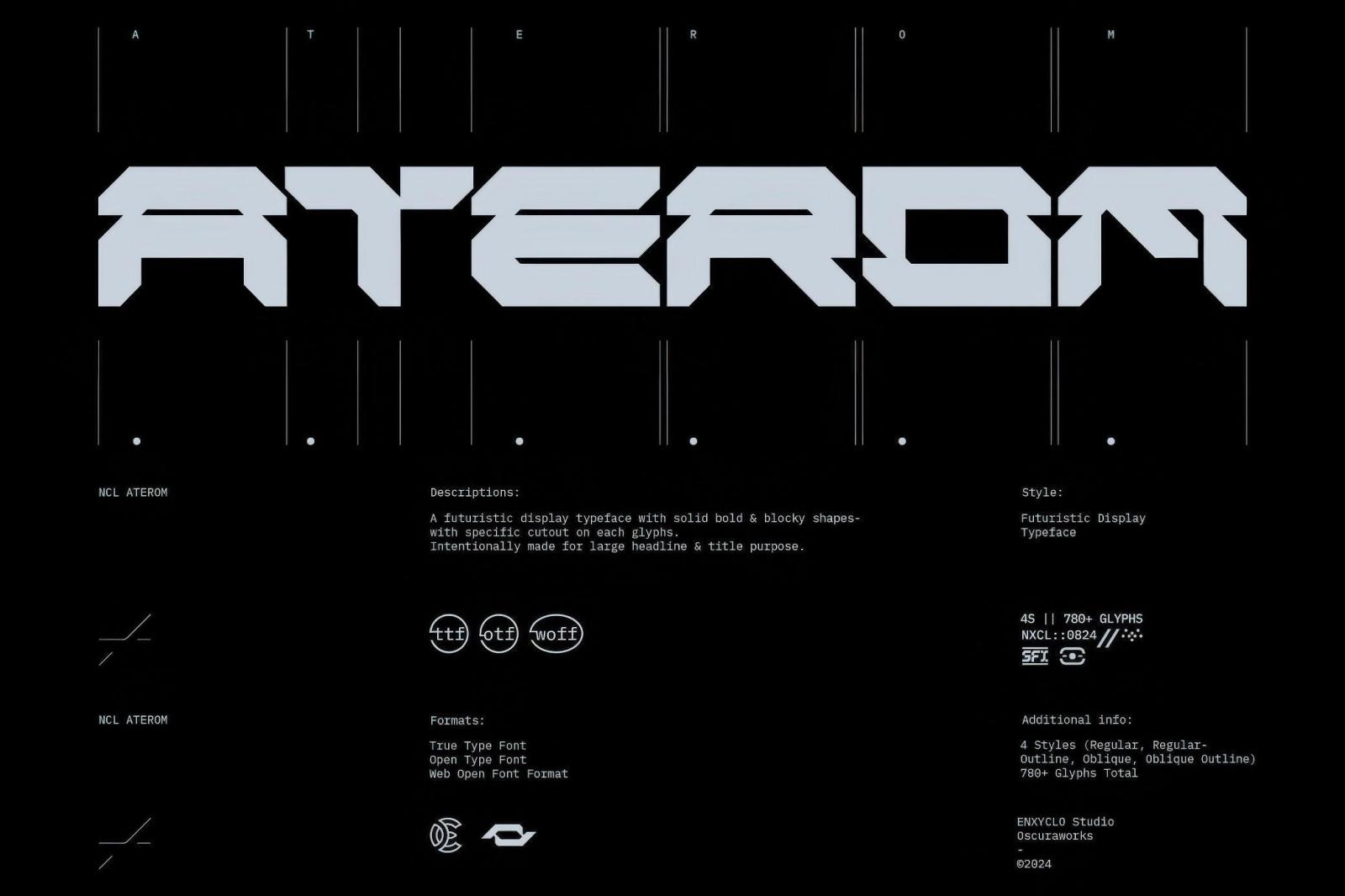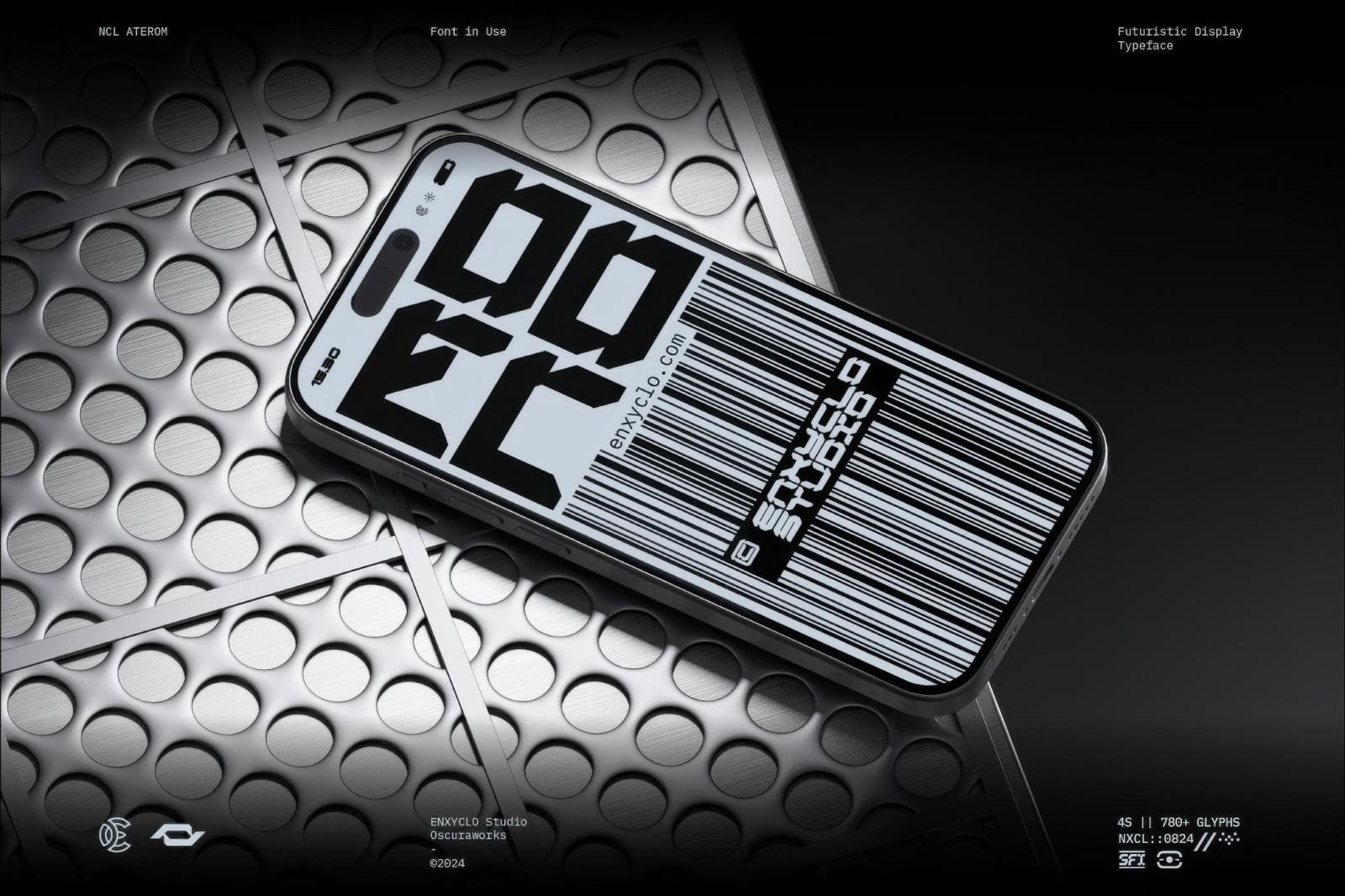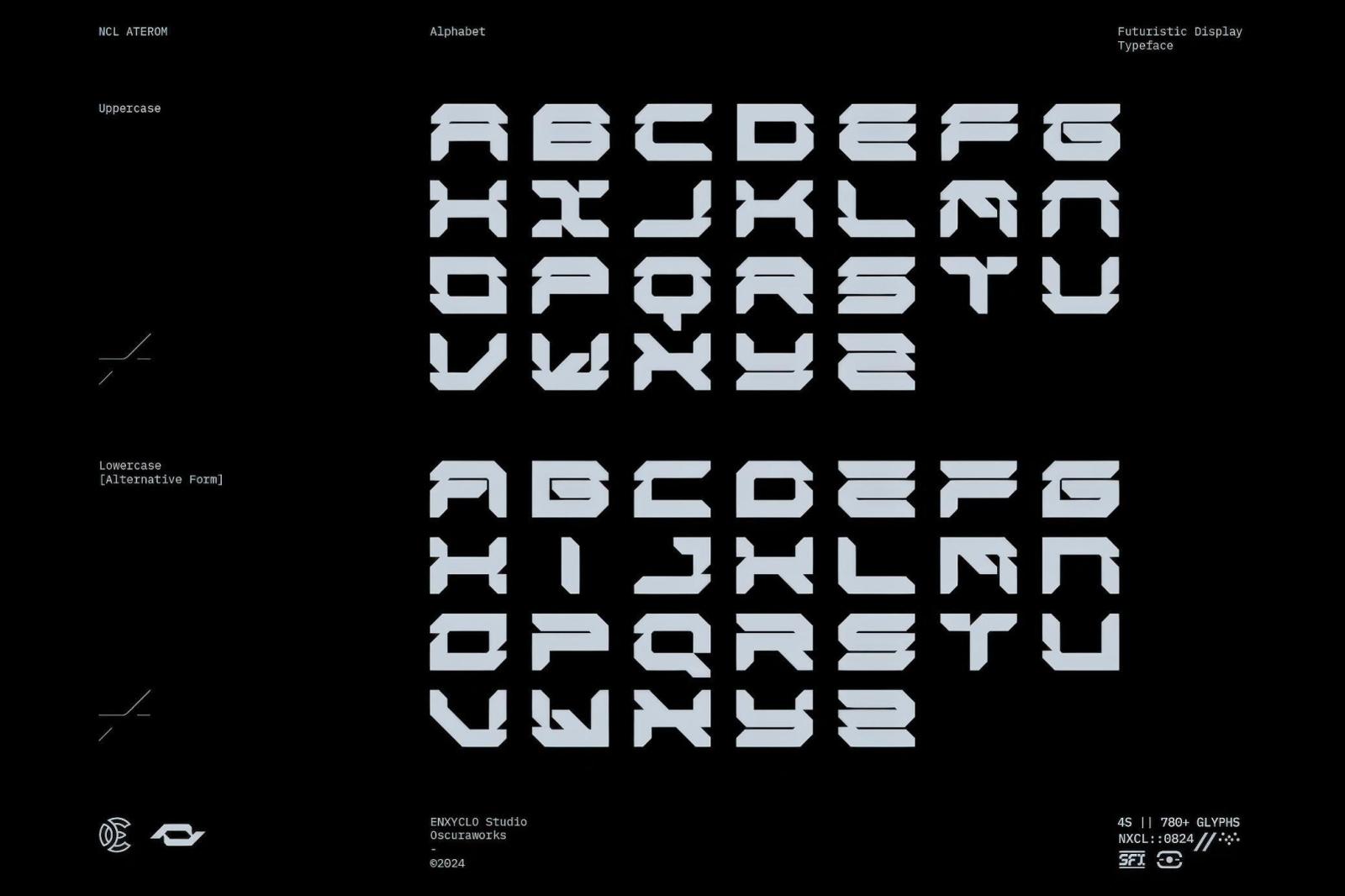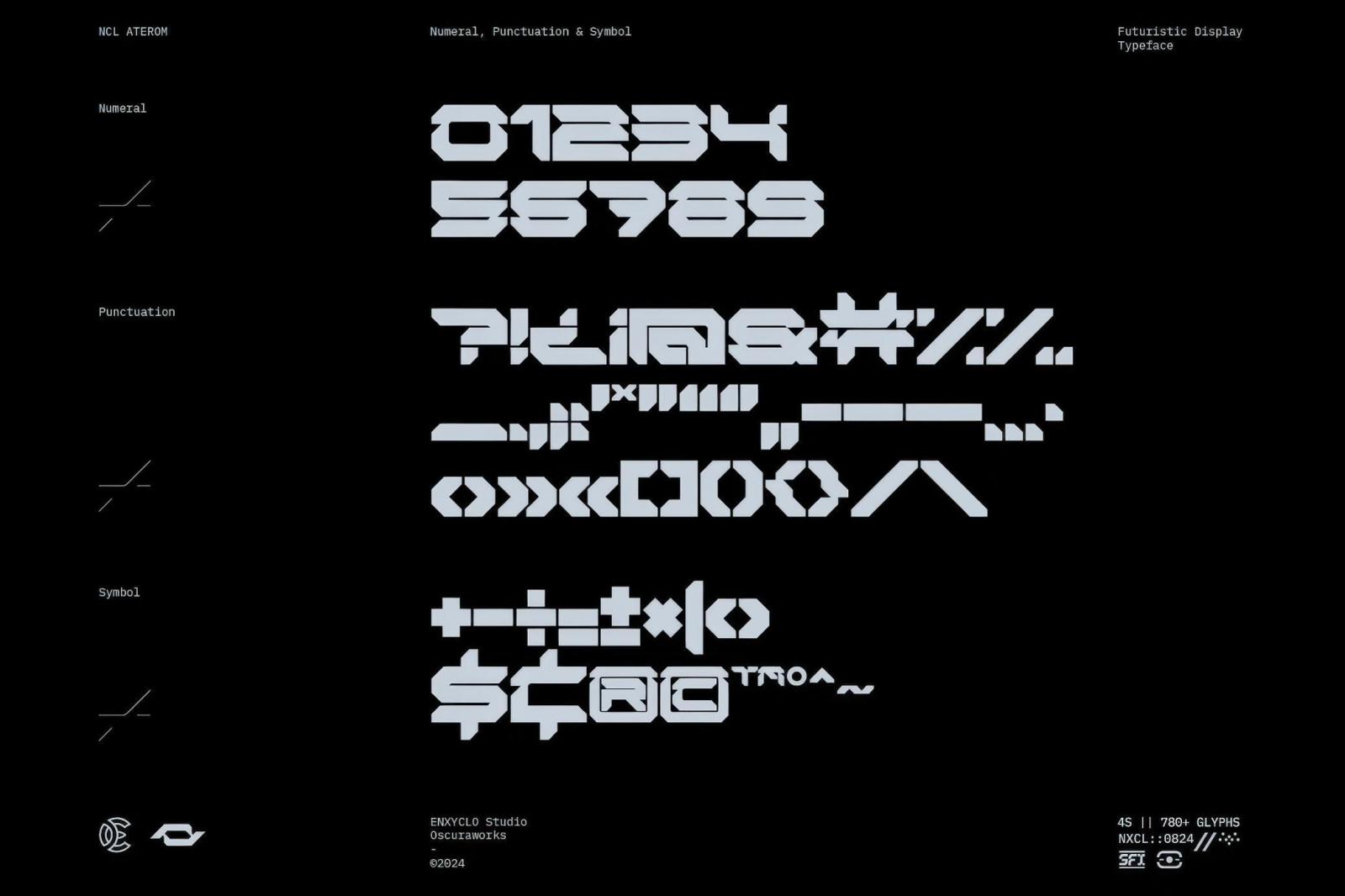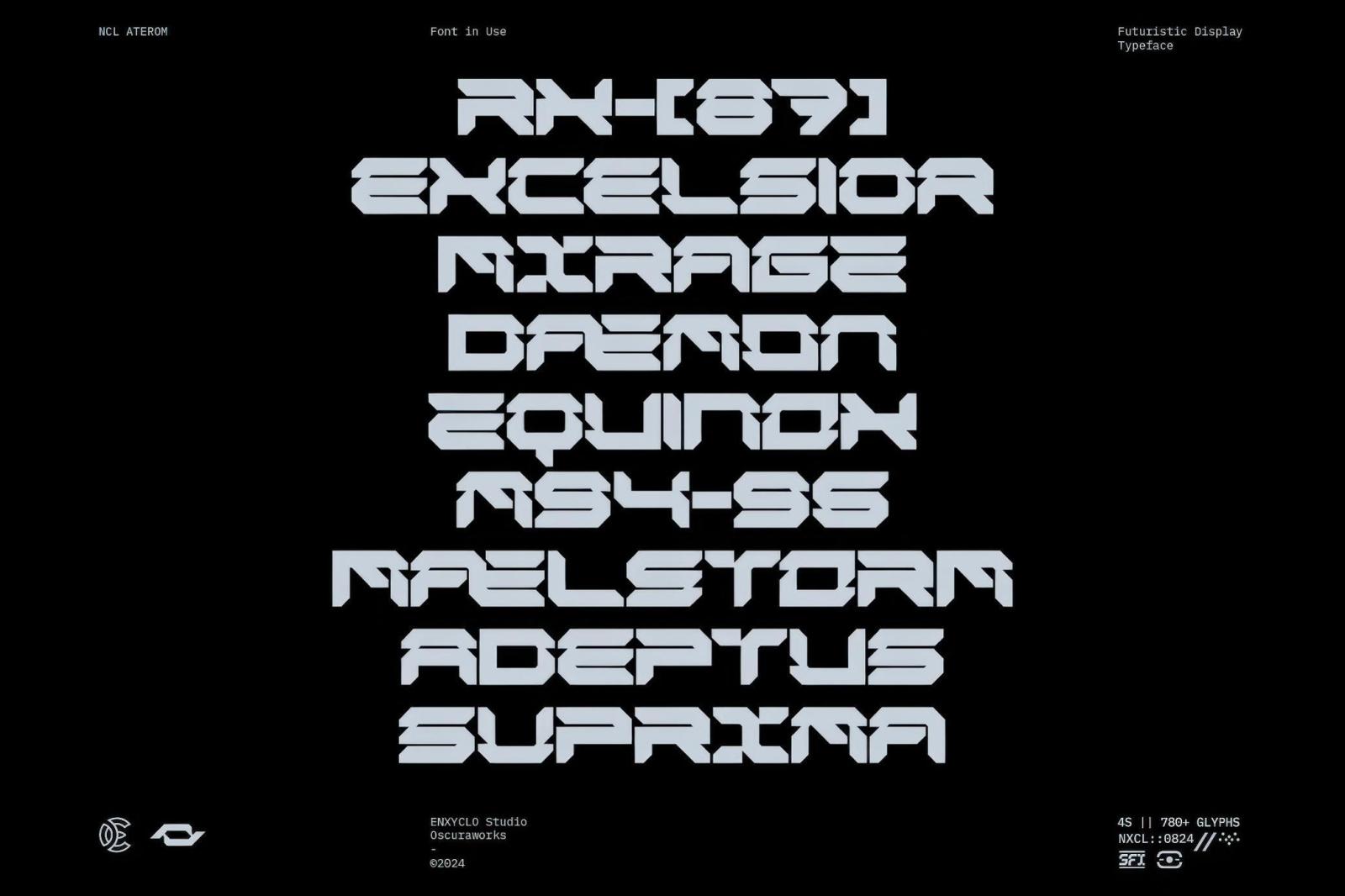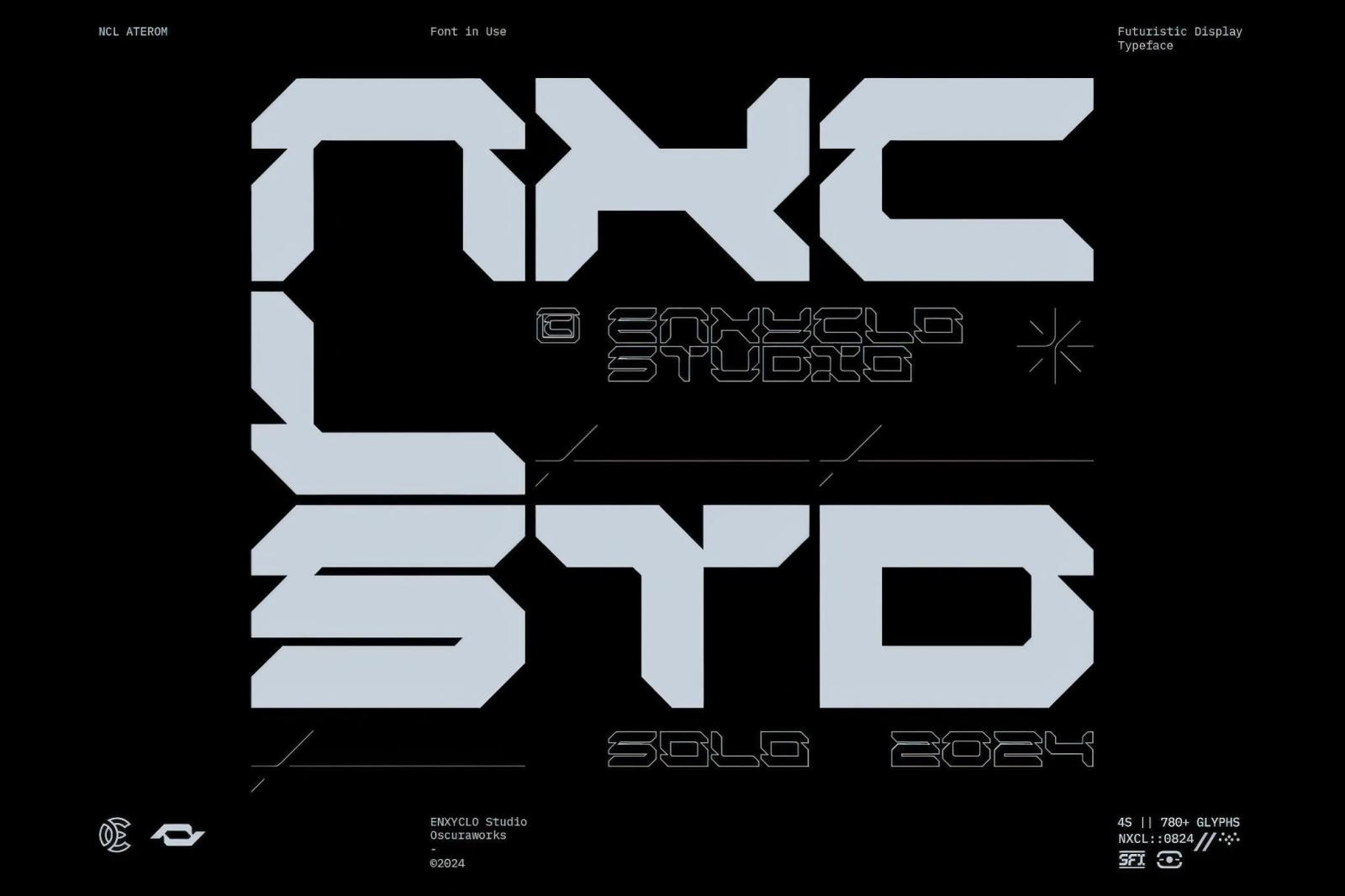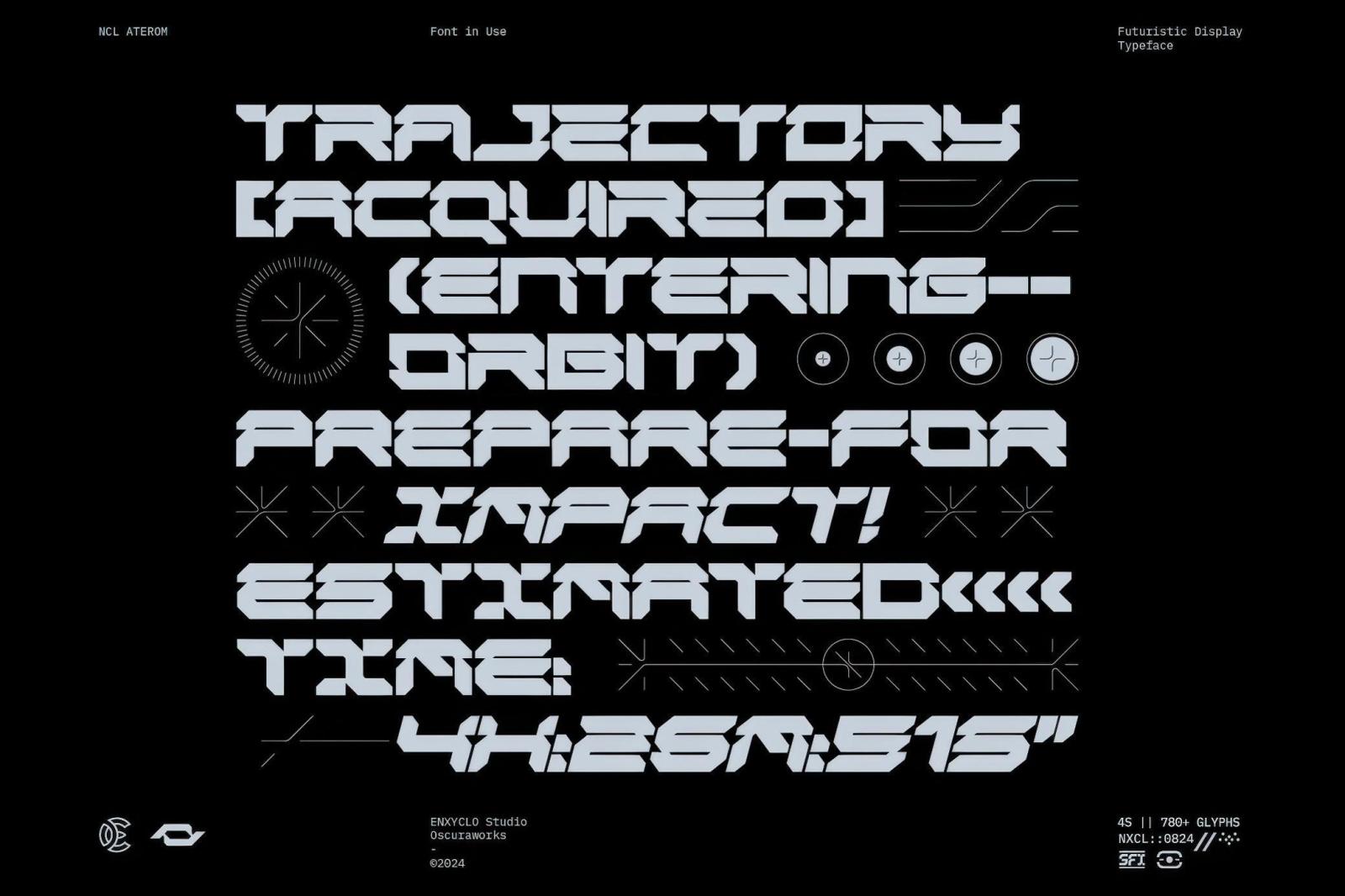
NCL Aterom — Futuristic Mecha Font
The future starts today! With NCL Aterom in your collection, the era of mecha robots and neon-lit megapolises feels one step closer — at least on your artboard.
NCL ATEROM is a futuristic display typeface blending mecha and cyberpunk aesthetics. It's got solid, bold, and blocky shapes, with unique cutouts on each glyph — as if those were cut off with a blade. The font includes 4 styles: Regular Outline, Oblique, and Oblique Outline. Each style comes with a complete character set, including multilingual support for Latin-based languages. NCL ATEROM is a perfect match for streetwear branding, so it shines on apparel prints, logos, stickers, and pins. It's also ideal for music album covers, band posters, and concert promotions.